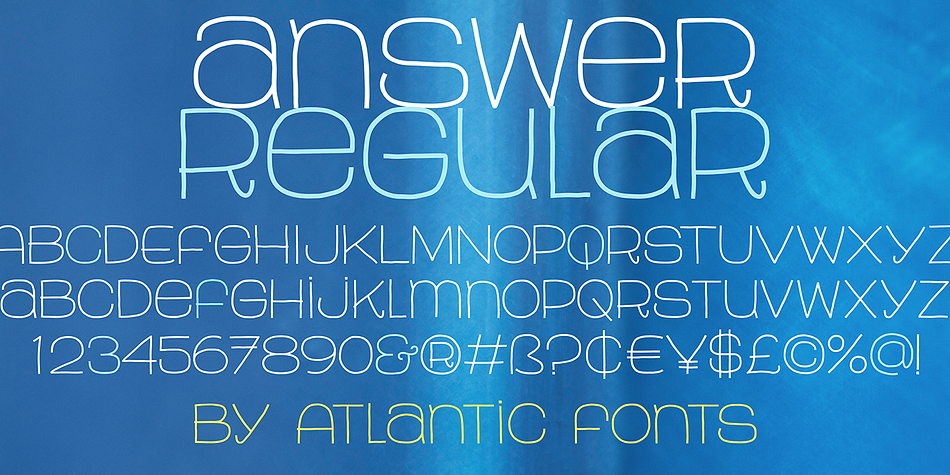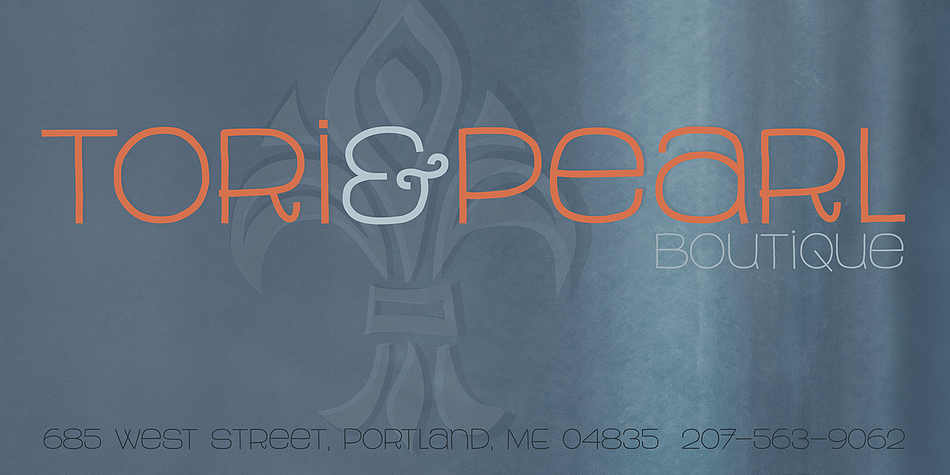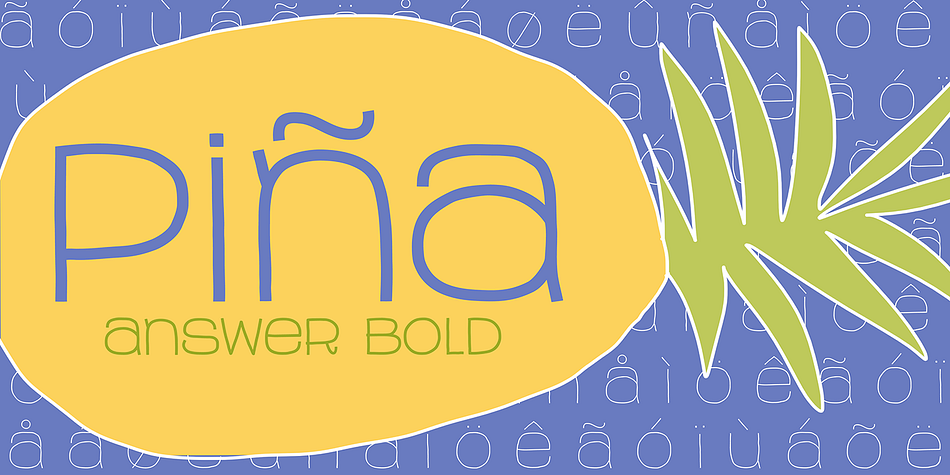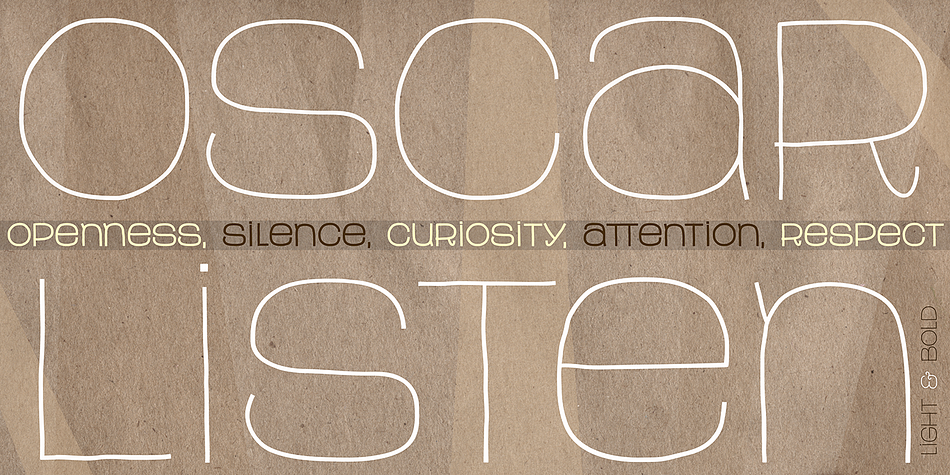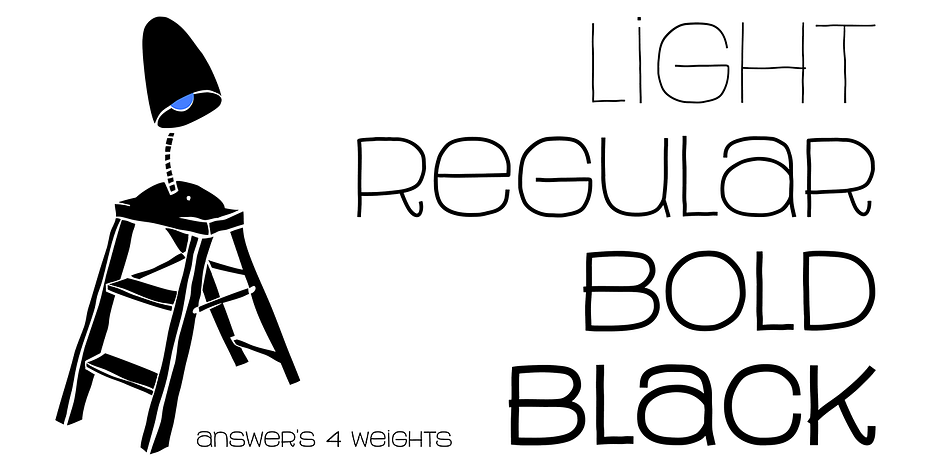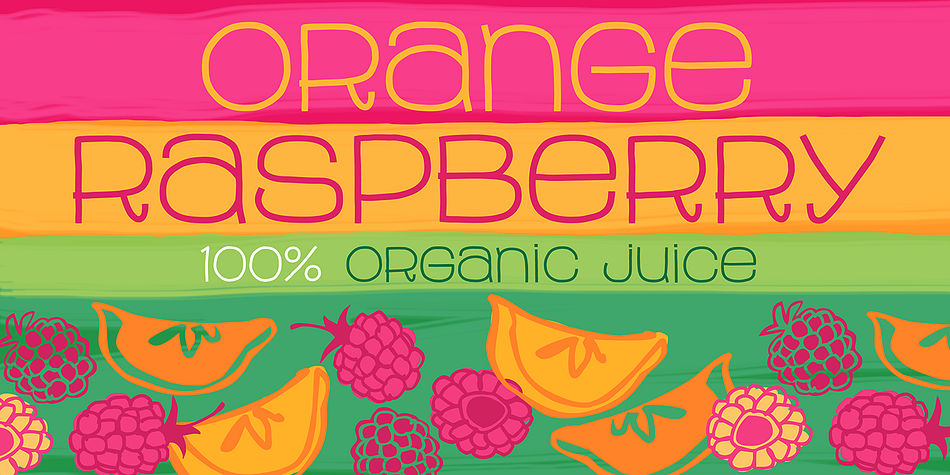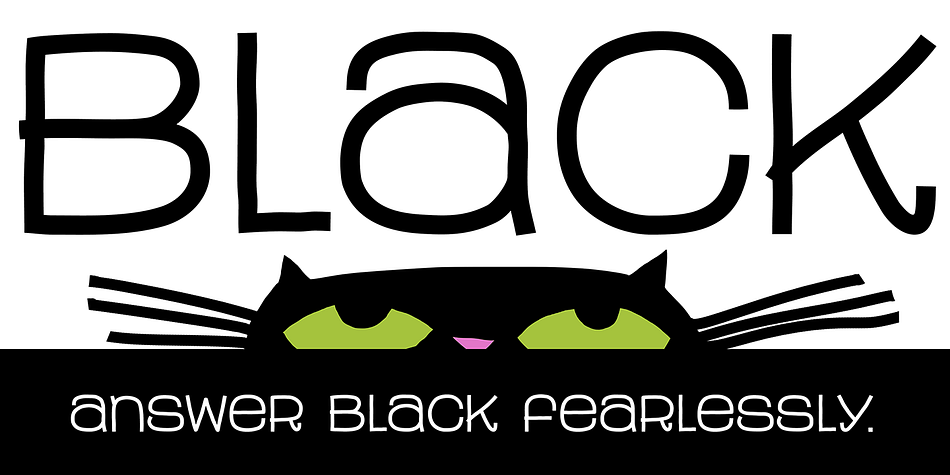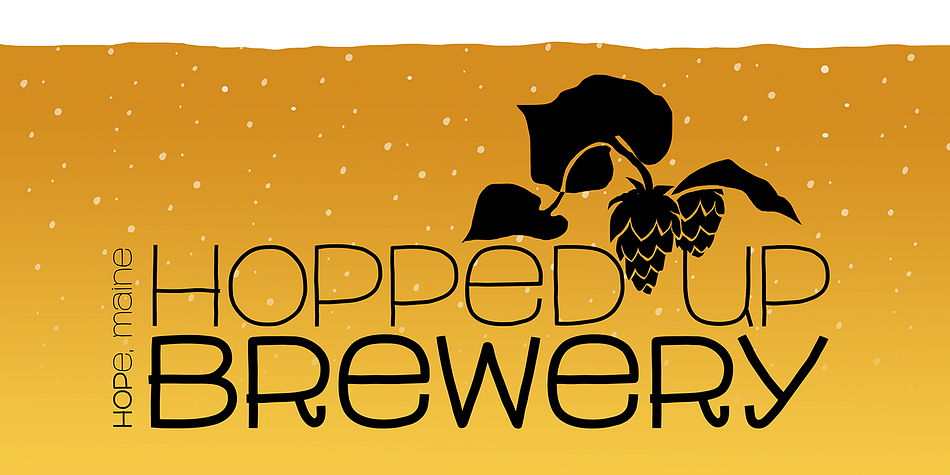
Designed by Amy Dietrich, Answer is a hand drawn and hand display font family. This typeface has four styles and was published by Atlantic Fonts.
Answer is a handsome, handwritten, and happy font family. Subtle variations in this unicase font can be found in upper and lower glyphs and in the handful of double-letter ligatures. Answer is balanced, squarish, roundish, fine, and fun, with a little sophistication and lots of handmade appeal.